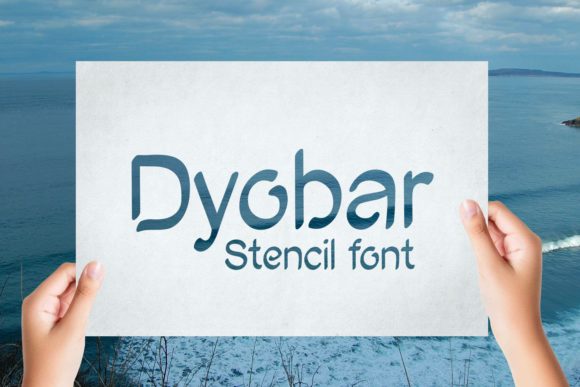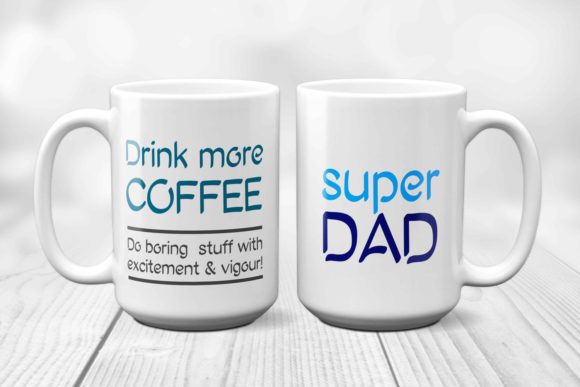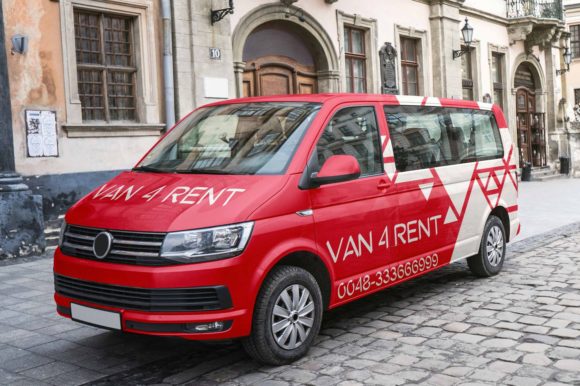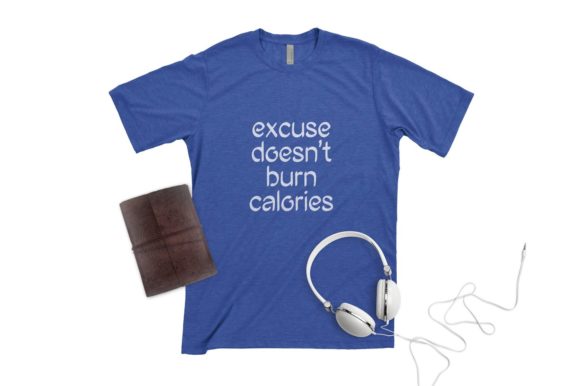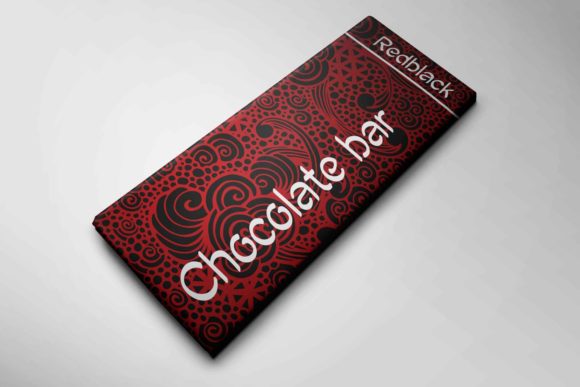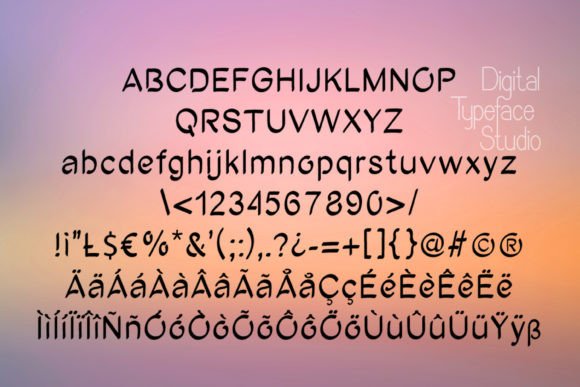
The Designer’s Delight: Unpacking the Dyobar Font
I’ll never forget the time I was working on a project for a trendy new coffee shop. My client wanted a bold, eye-catching sign that would stand out in a crowded market. I spent hours scouring font libraries, but nothing seemed quite right. That was until I stumbled upon the Dyobar font. With its sleek, stencil design and confident vibe, it was the perfect fit. In this article, I’ll share my love for Dyobar, its features, and how to make the most of it in your designs.
An Honest Review of Dyobar
- ✨ Unique stencil design: Dyobar’s carefully crafted stencil font is perfect for adding a touch of industrial chic to your designs.
- ✅ Confidence-inspiring: This font delivers any message with confidence and style, making it perfect for bold statements.
- 💡 OpenType features: Dyobar supports a range of OpenType features, including stylistic alternates and glyphs, giving you plenty of creative options.
While Dyobar is an amazing font, there are a few things to keep in mind:
- 🤔 Limited use in body text: Due to its stencil design, Dyobar may not be the best choice for long blocks of body text. It’s perfect for headings and titles, though!
- ⚠️ Requires careful kerning: As with any font, be sure to adjust the kerning to ensure your text looks its best.
The Backstory of Dyobar
Dyobar was designed with the modern designer in mind. Its creator wanted to craft a font that would deliver bold, confident messages with style. Inspired by industrial design and stencil art, Dyobar is the perfect fusion of form and function.
A: Dyobar is a carefully crafted stencil font designed for confident and stylish messaging.